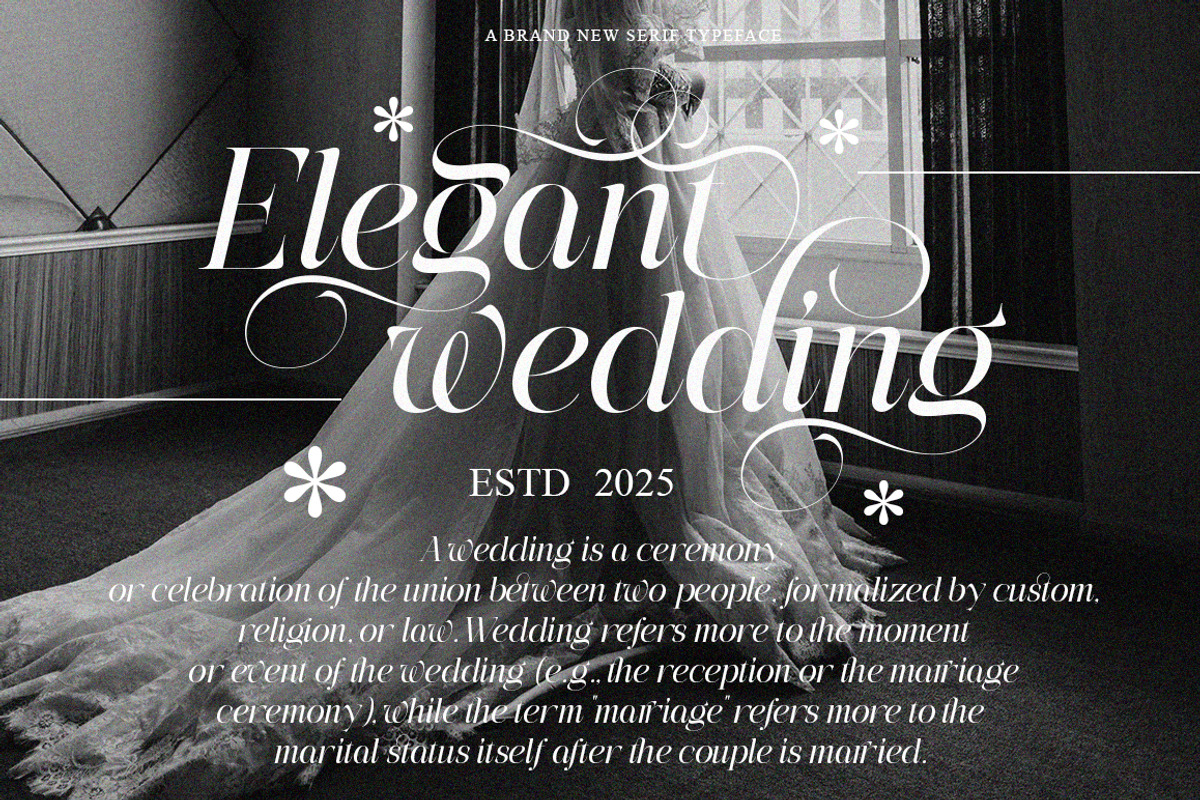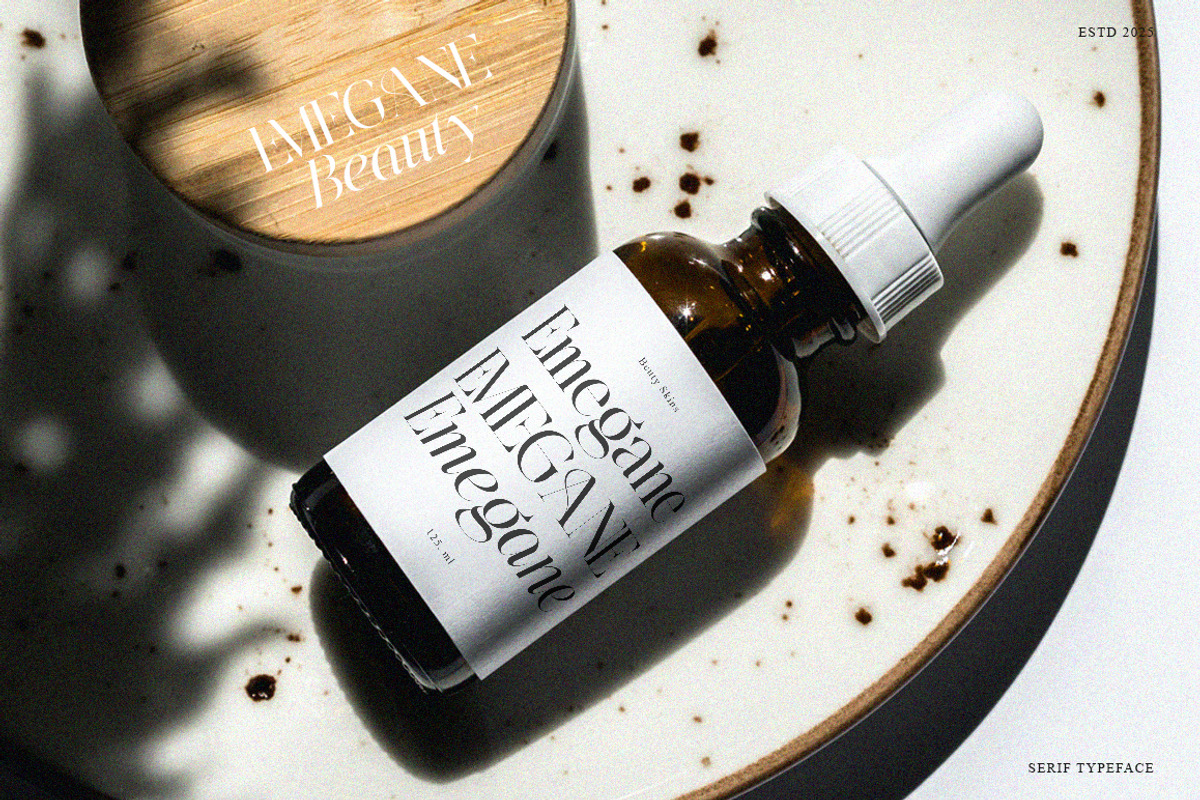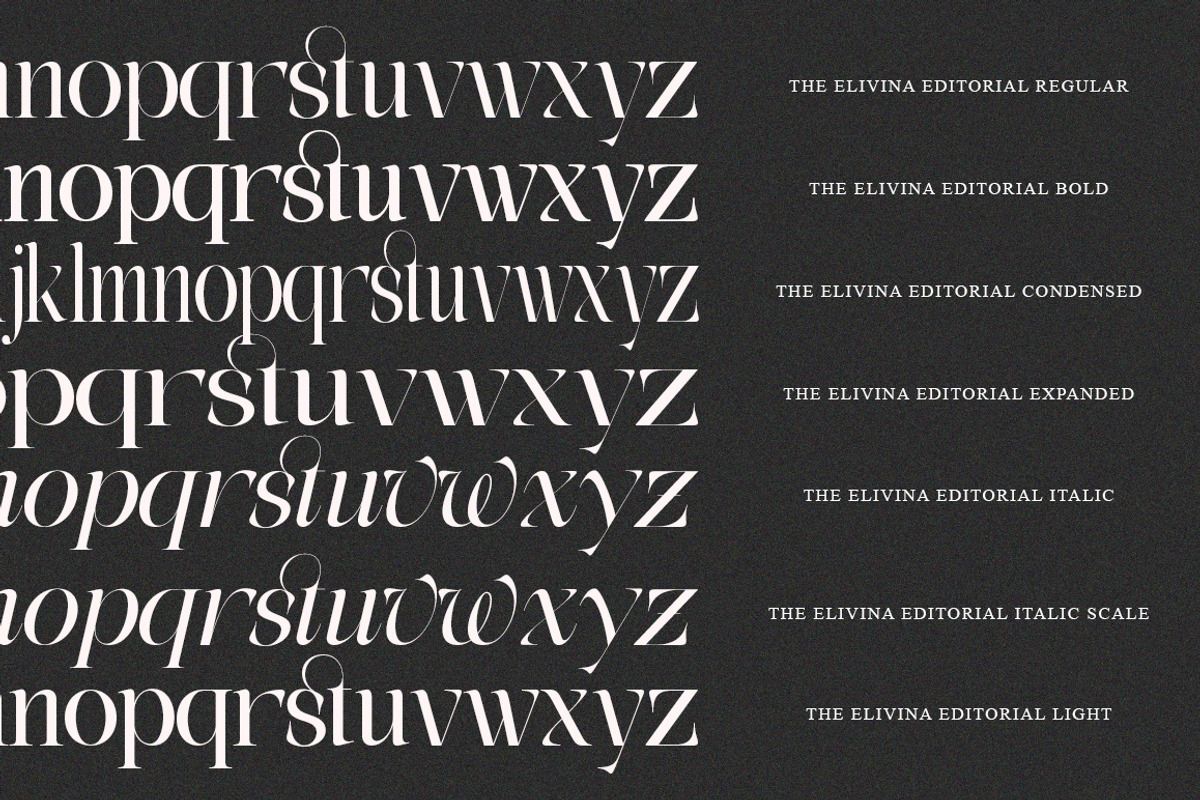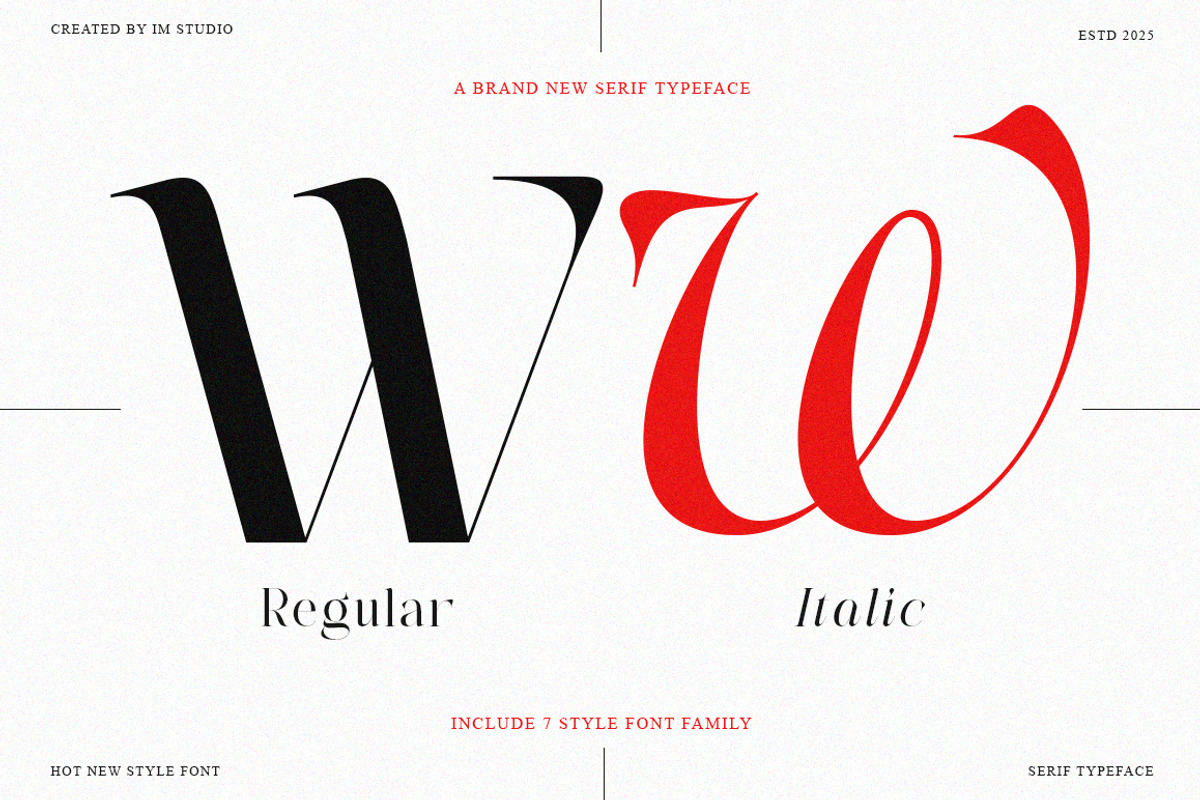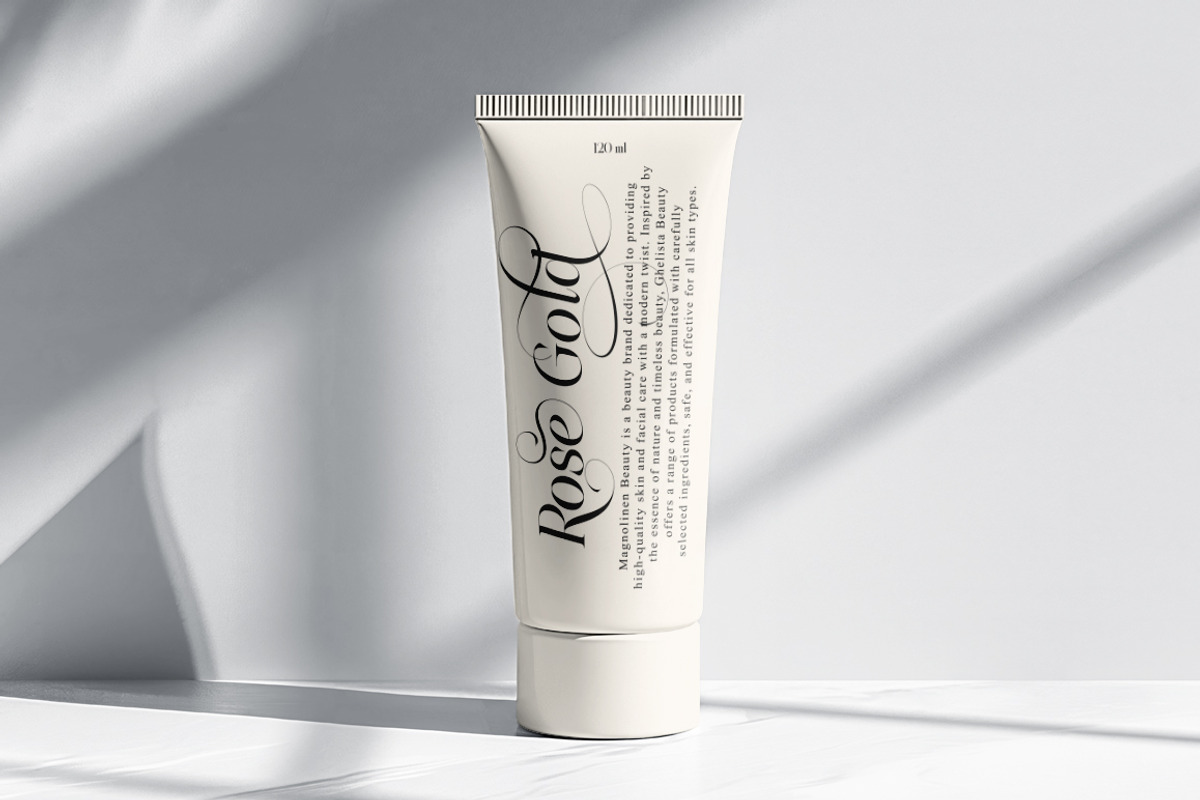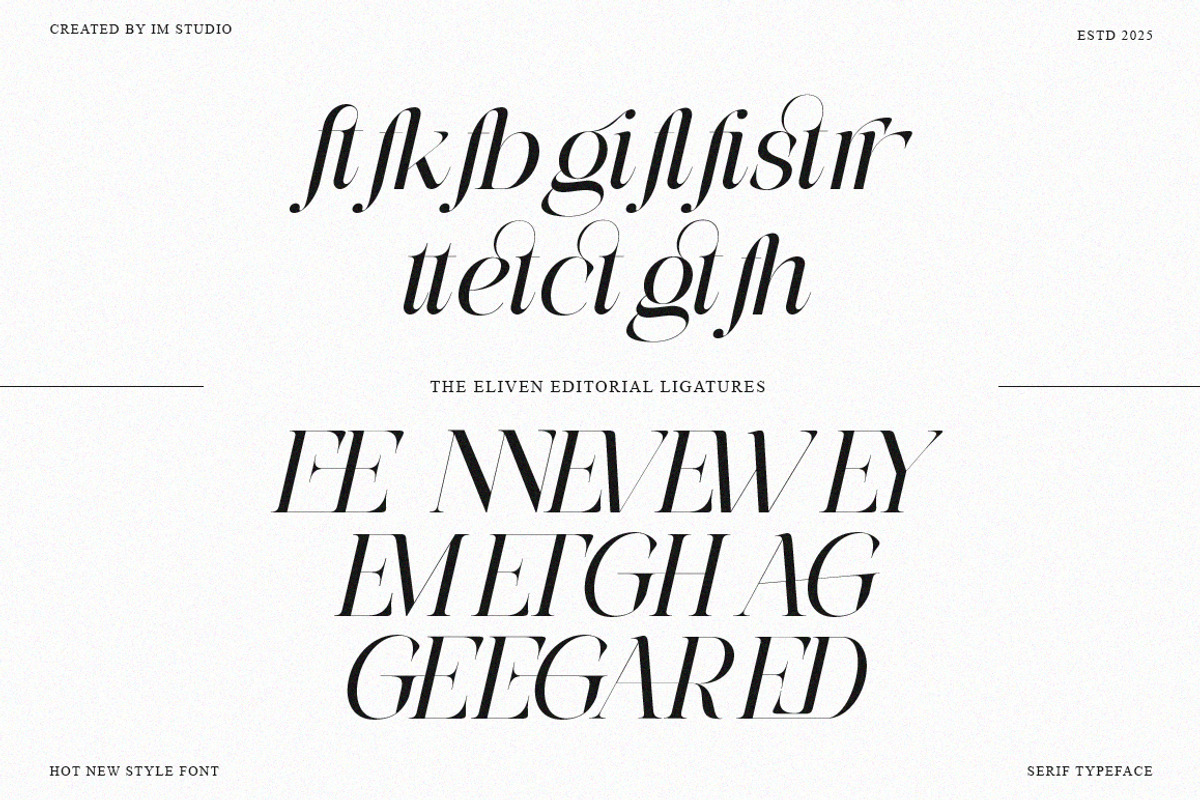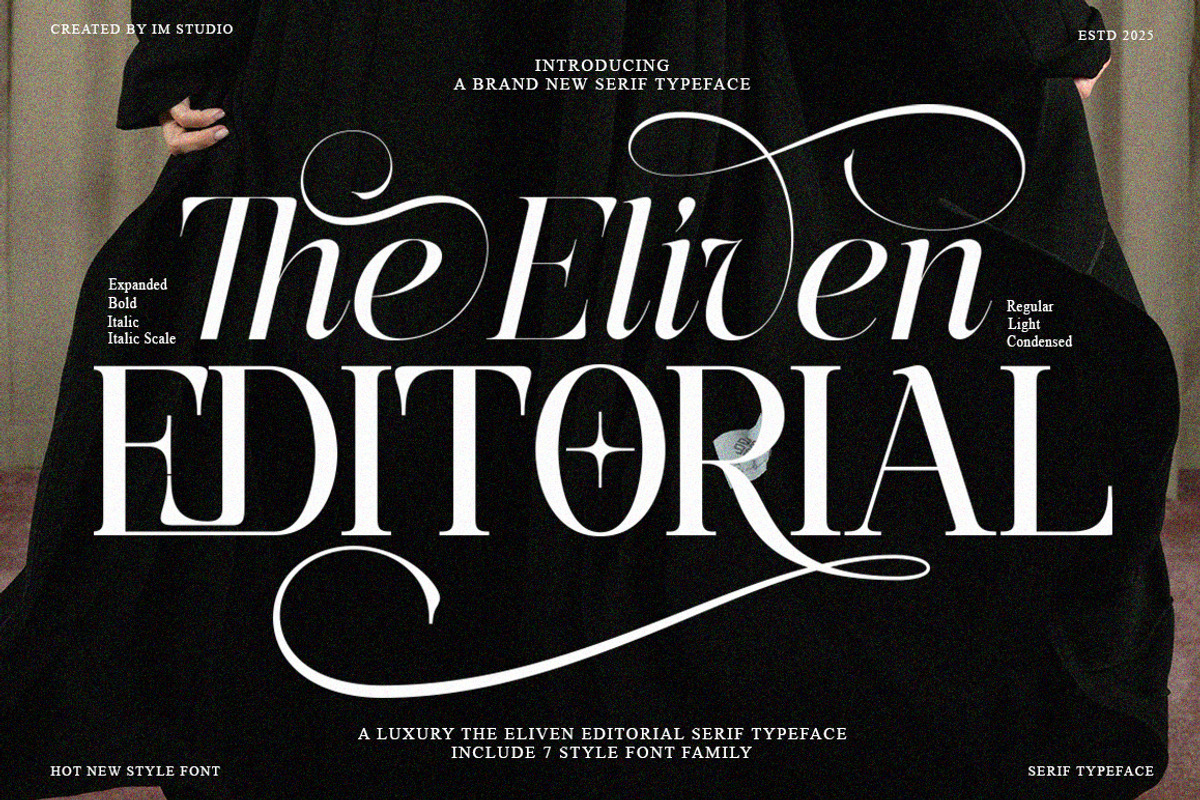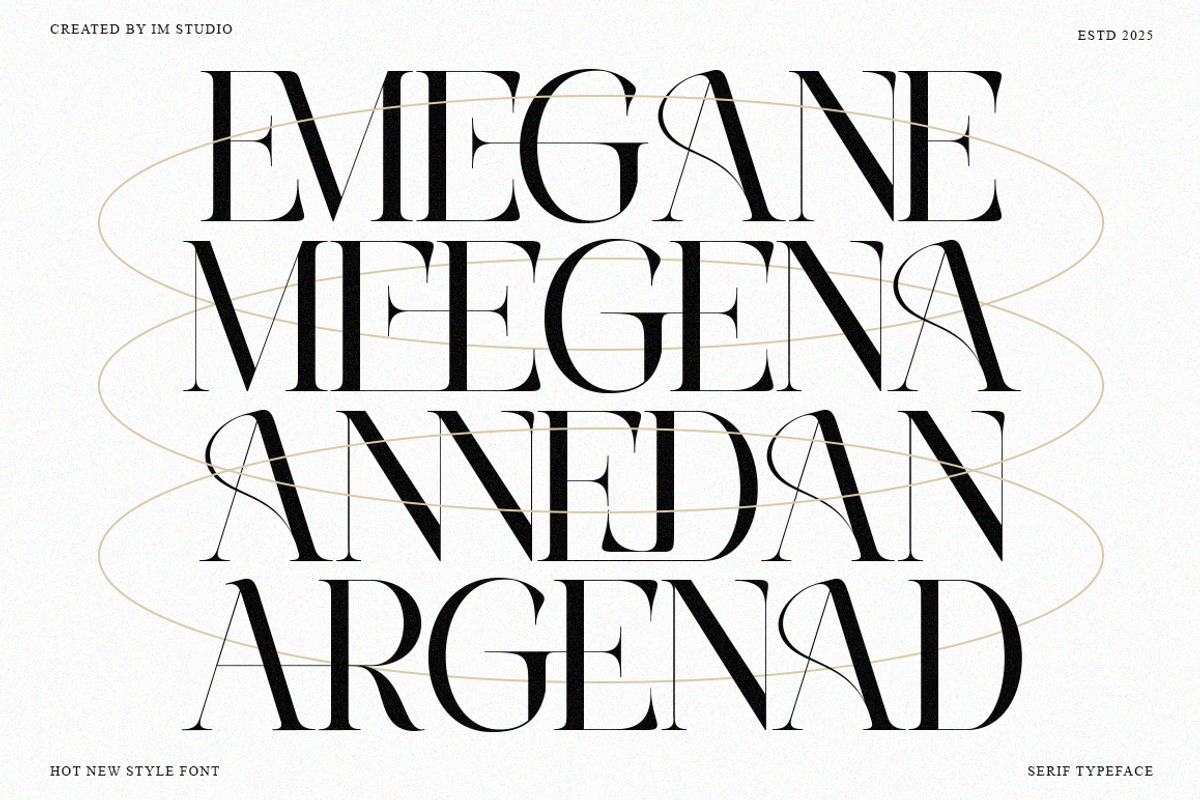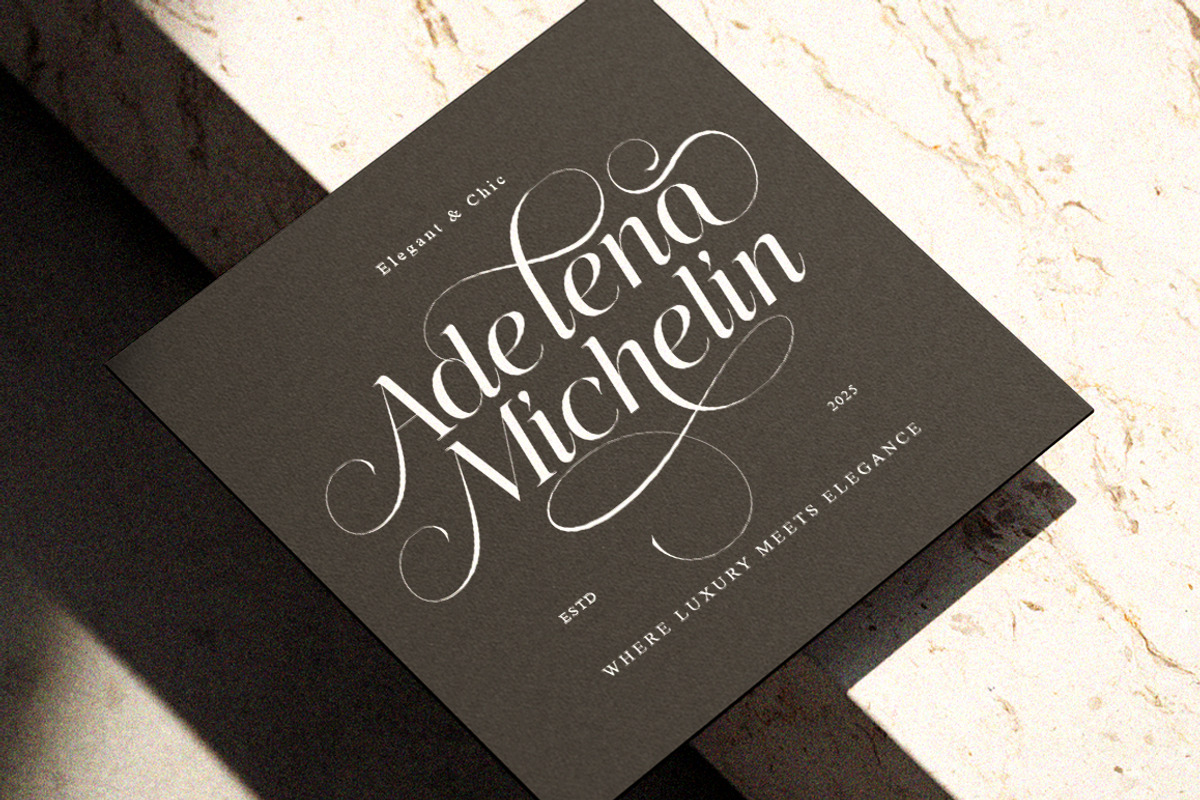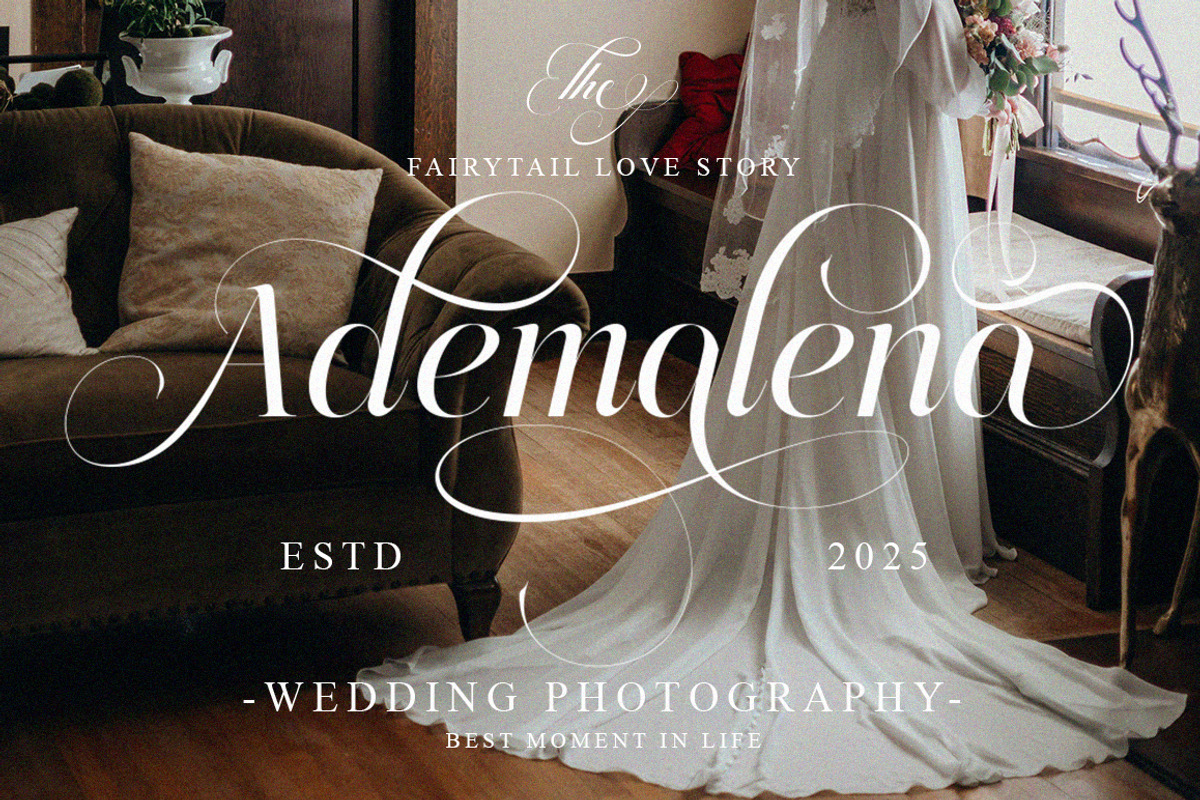
The Eliven Editorial | 7 Font Style
The Eliven Editorial is a modern display serif typeface that blends timeless elegance with a contemporary touch. Its subtle contrasts and graceful curves make it the perfect choice for designs that demand sophistication, style, and a luxurious feel.
This typeface is highly versatile and perfect for branding, fashion, magazines, logos, packaging, and any creative project that desires a striking and sophisticated look.
7 font styles for maximum flexibility: Regular, Italic, Scale Italic, Concise, Expanded, Scale Italic, Light
Uppercase & Lowercase Multilingual support Elegant style variations Perfect for headlines and artistic typography Suitable For:
Branding & Logo Design Editorial & Magazine Fashion-related Projects Posters & Book Covers Website & Social Media Aesthetics